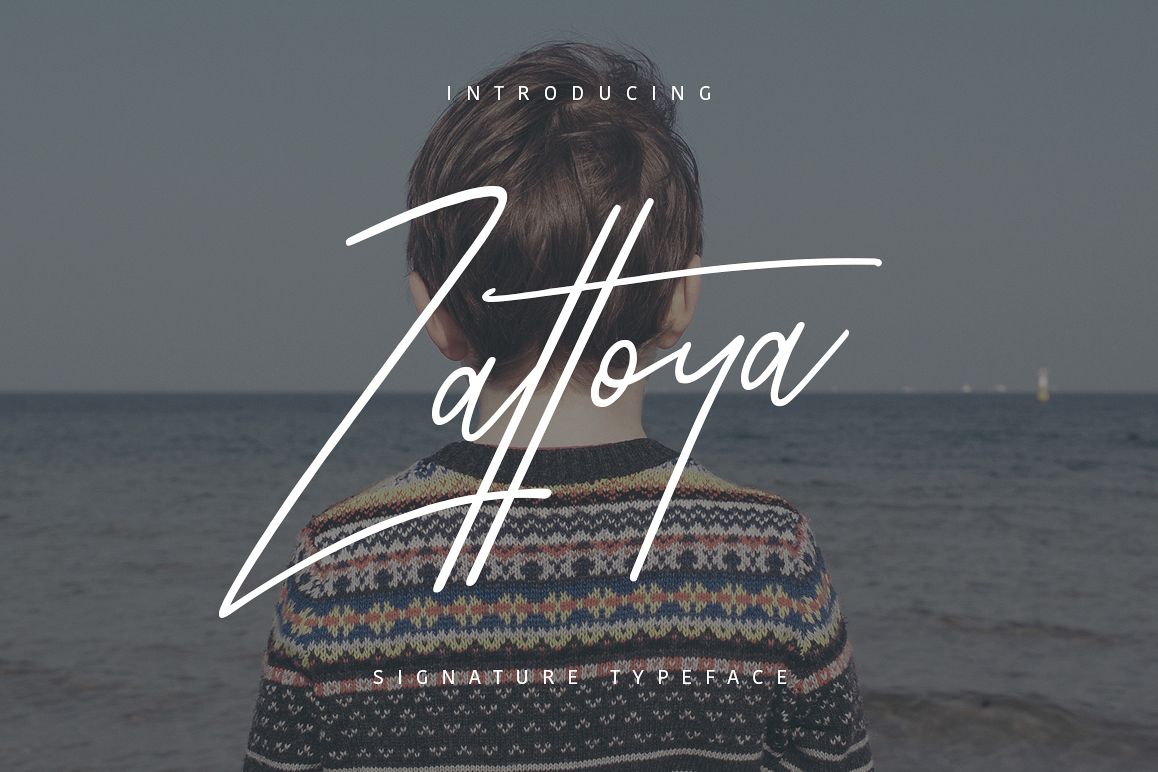
Give your designs an authentic handcrafted feel. "Zattoya" is perfectly suited to signature, stationery, logo, typography quotes, magazine or book cover, website header, clothing, branding, packaging design and more. Included Ligatures. License: This font included for personal, commercial use, multiple projects, behalf of a client. Fonts may be printed on to products that are subsequently sold, websites and within website design. Graphics may be printed on to products that are subsequently sold when an effort is made to use them as part of a new design including a variation of other graphics or fonts. This font available on OTF, TTF and Web Font formats. Thanks for use this font